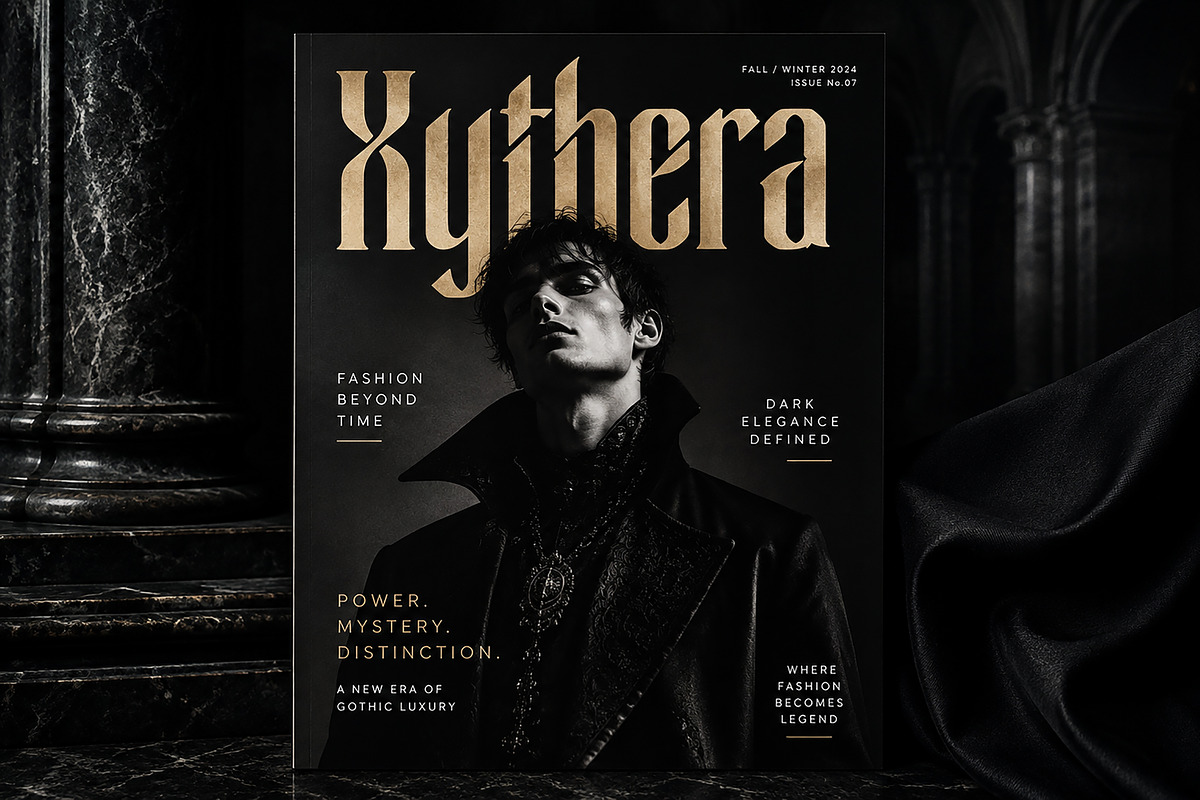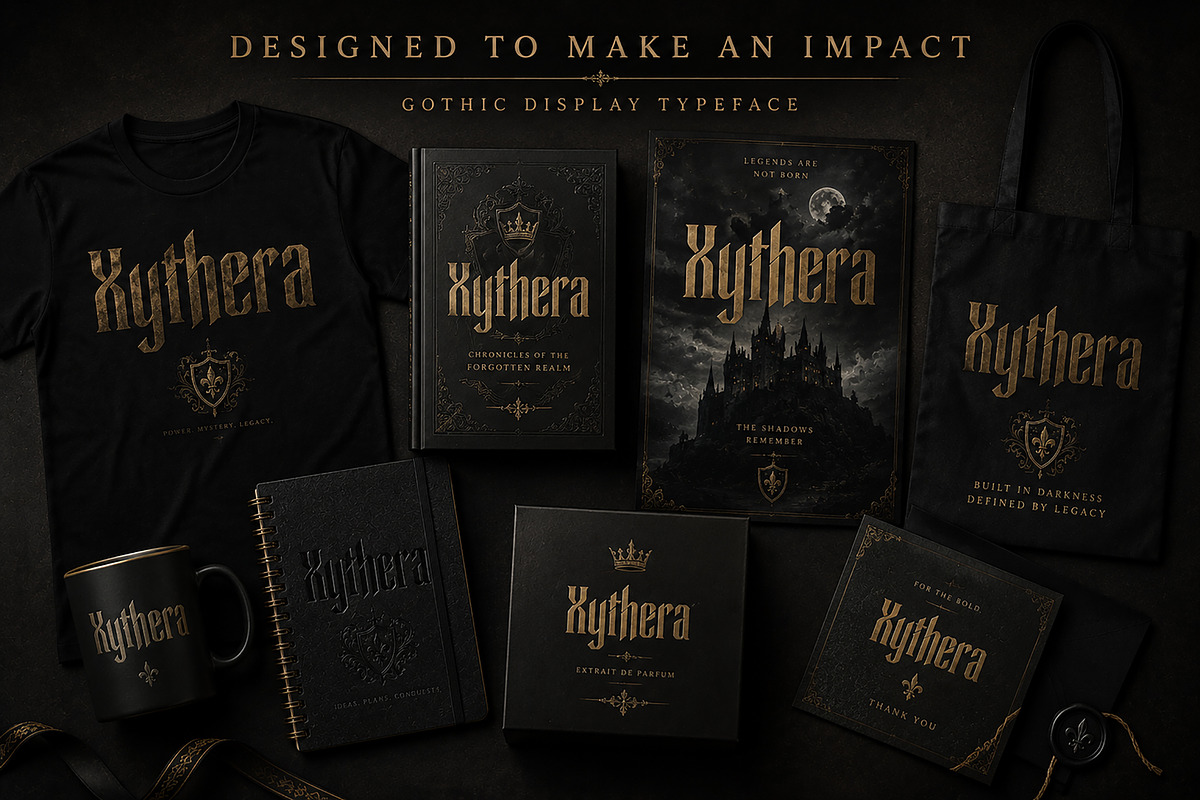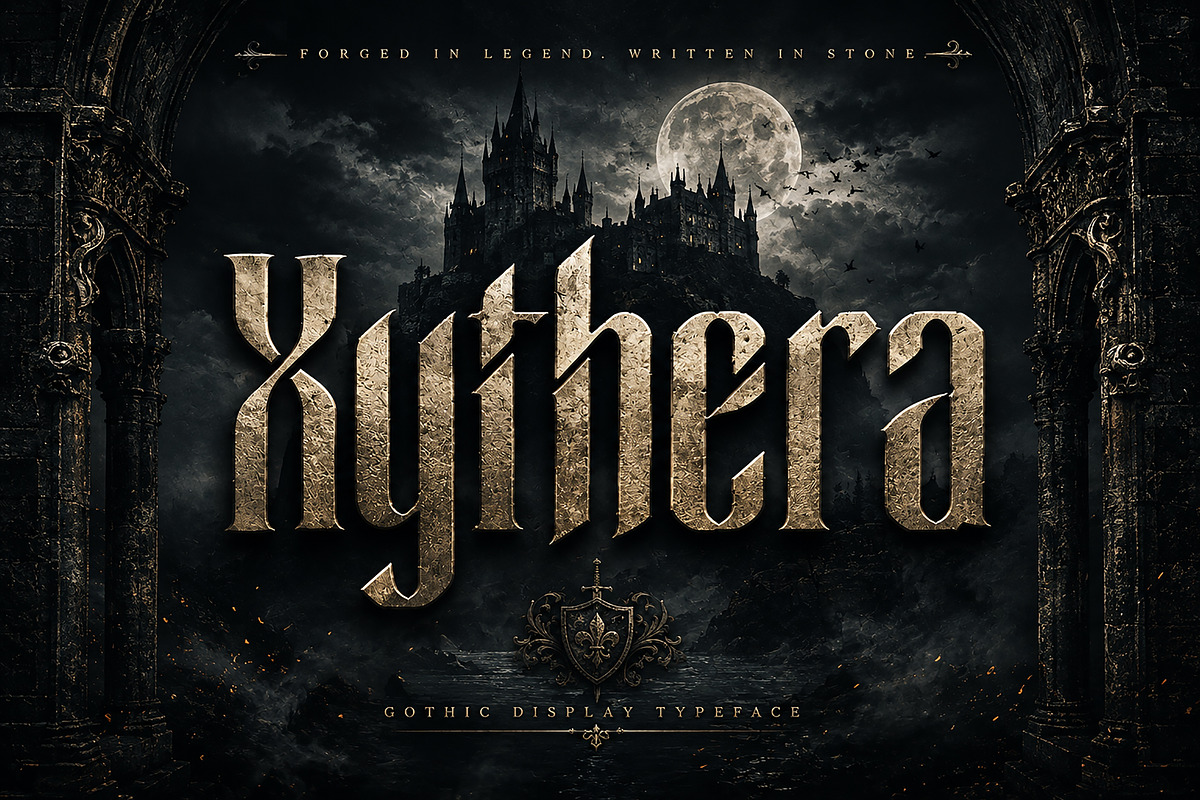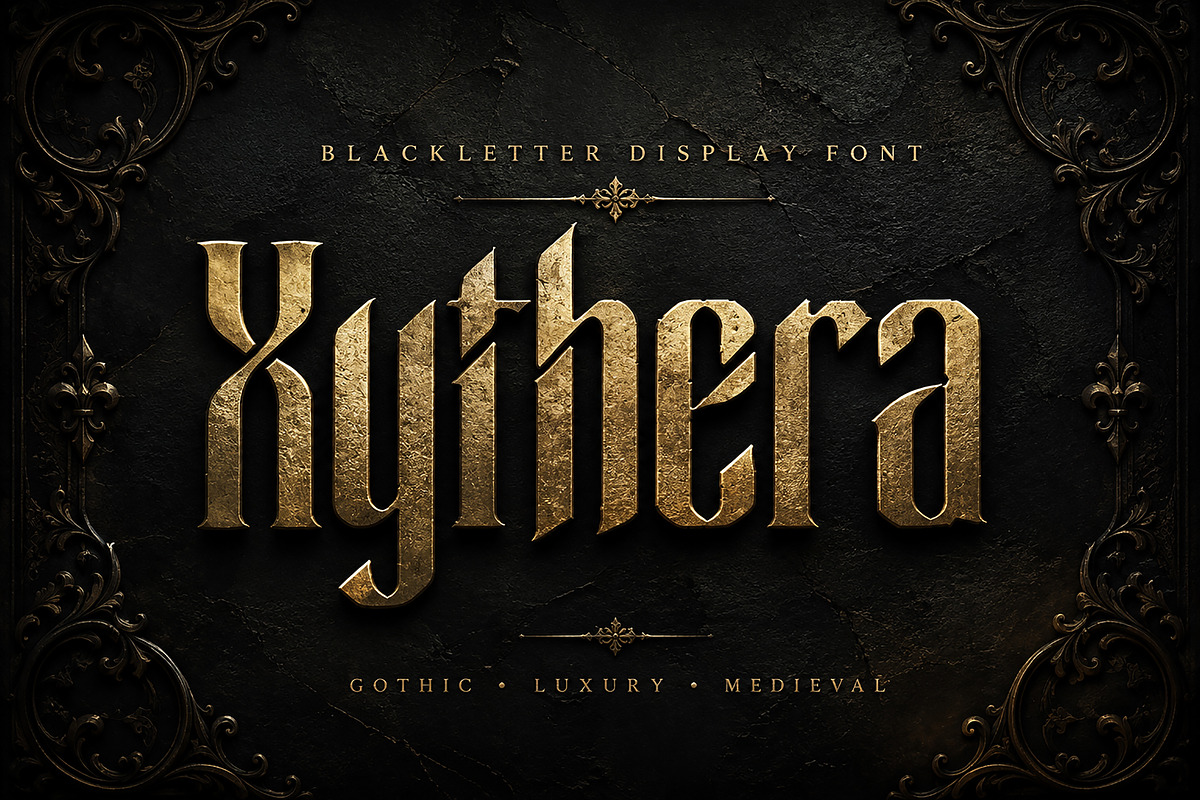
Xythera
Xythera — Gothic Blackletter Display Font
Xythera is a bold and dramatic Gothic Blackletter display typeface inspired by medieval typography, ancient manuscripts, gothic architecture, and timeless luxury. Its sharp angular forms and distinctive blackletter character make it perfect for designs that need a powerful, mysterious, and sophisticated visual presence.
Designed to make a statement, Xythera works beautifully for branding, logos, posters, album artwork, fashion editorials, book covers, packaging, merchandise, invitations, labels, and other high-impact display designs.
Whether you're creating a dark luxury brand, medieval-inspired artwork, gothic fashion campaign, music artwork, or an eye-catching poster, Xythera brings a strong historical character with a modern display aesthetic.
Gothic & Medieval Branding
Logo & Brand Identity
Posters & Wall Art
Album & Music Artwork
Book & Magazine Covers
Fashion & Editorial Design
Clothing & T-Shirt Designs
Packaging & Product Labels
Tattoo-Inspired Graphics
Wedding & Event Invitations
Greeting Cards
Merchandise Design
Vintage & Historical Projects
Luxury & Dark Aesthetic Designs
Bold Gothic Blackletter style
Dramatic and distinctive letterforms
Perfect for headlines and display typography
Strong medieval and historical character
Suitable for both print and digital design
Great for branding and merchandise
Ideal for dark, luxury, vintage, and gothic aesthetics
Style: Gothic / Blackletter / Medieval Display